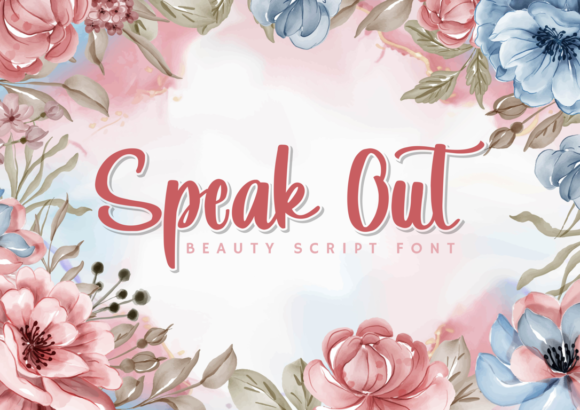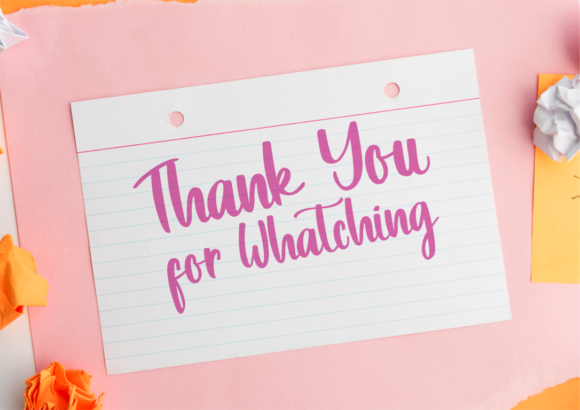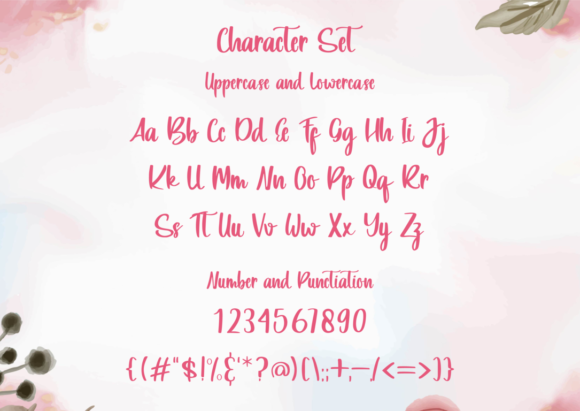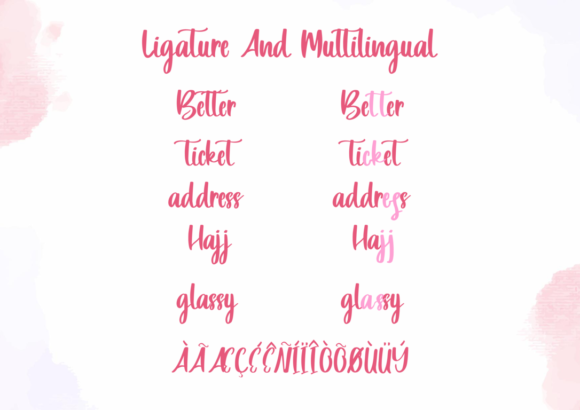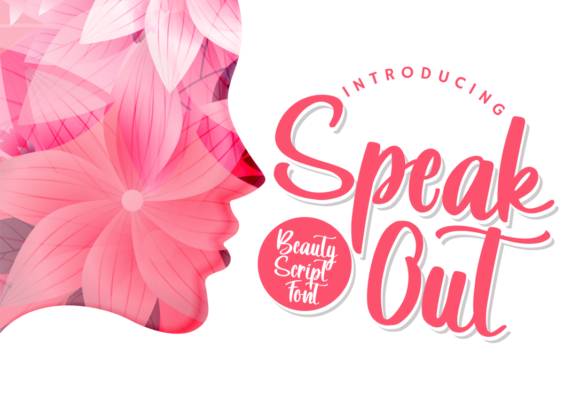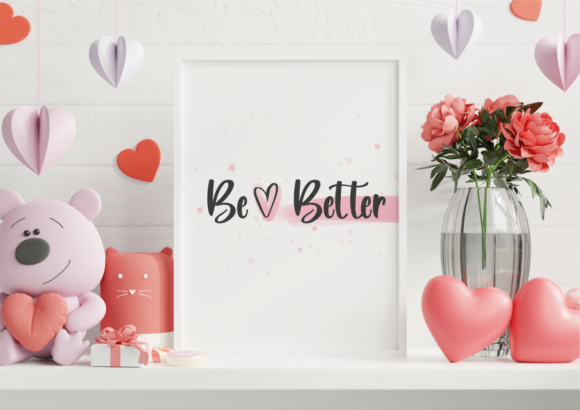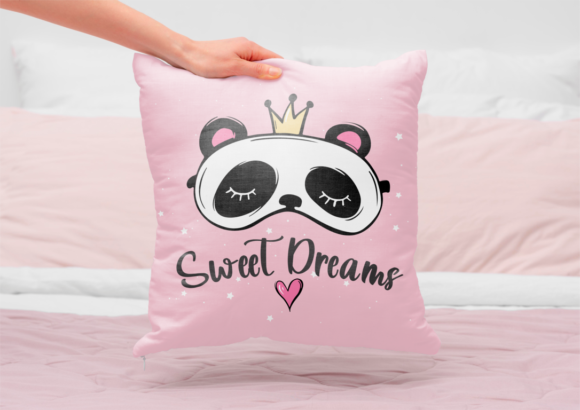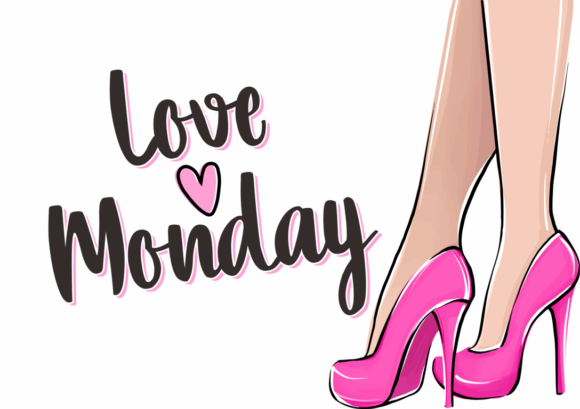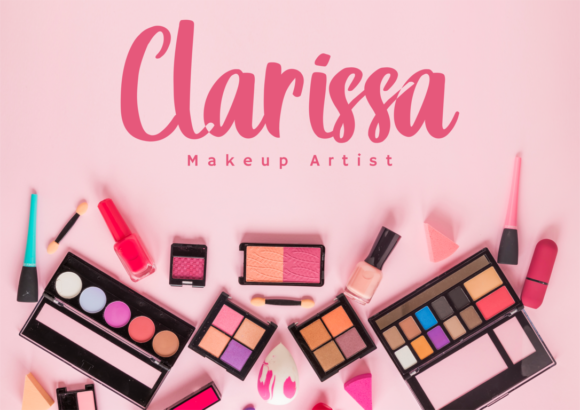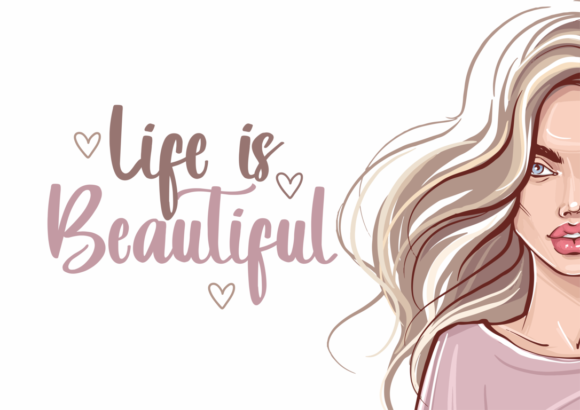
Speak out Font
About Speak out Font
Speak Out is a lovely script font featuring charming, playful characters that seem to dance along the baseline. Add this font to your most creative ideas, and notice how it makes them stand out!